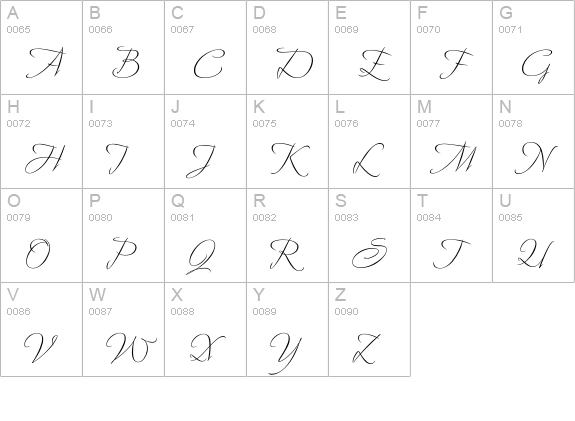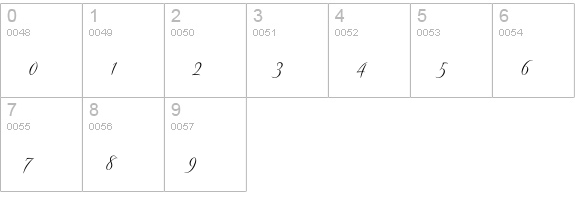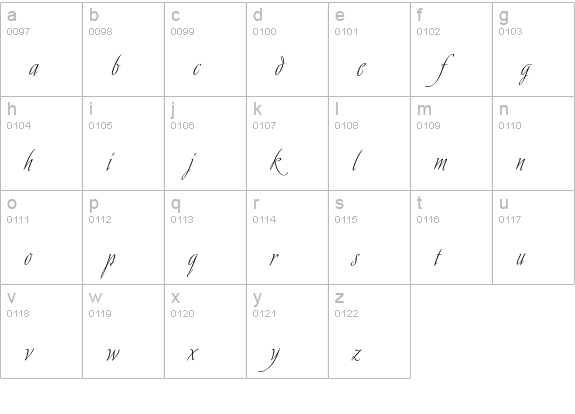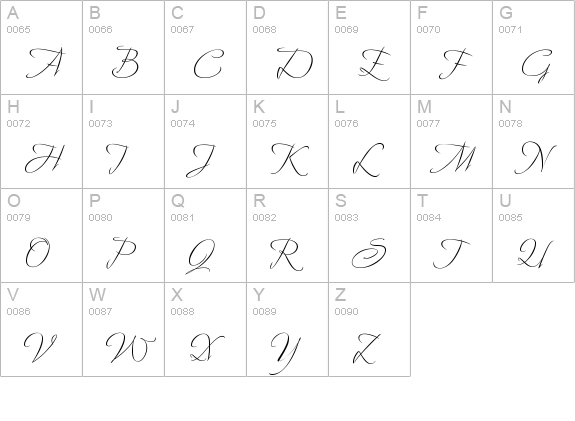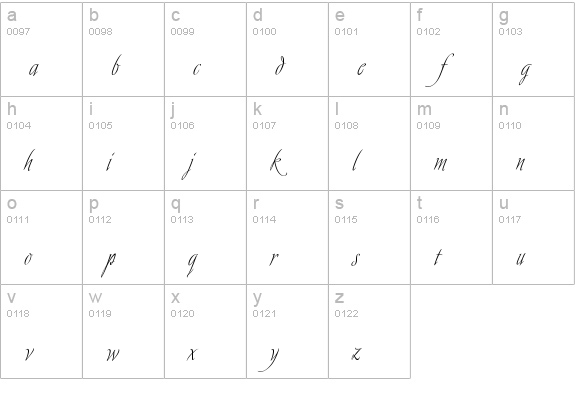
Avalon font is a stunning display typeface that exudes elegance and sophistication. With its sleek lines and modern aesthetic, Avalon is perfect for adding a touch of luxury to your design projects. This versatile font can be used for a variety of purposes, from branding to editorial design. What sets Avalon font apart is not only its timeless appeal but also the fact that it is available for free download at FontsMarket.com. This means that you can easily access this high-quality font without any cost, making it a valuable addition to your font collection. Whether you're working on a logo, website, or print design, Avalon font will elevate your project with its refined and stylish appearance. Download Avalon font today and bring a touch of sophistication to your designs.